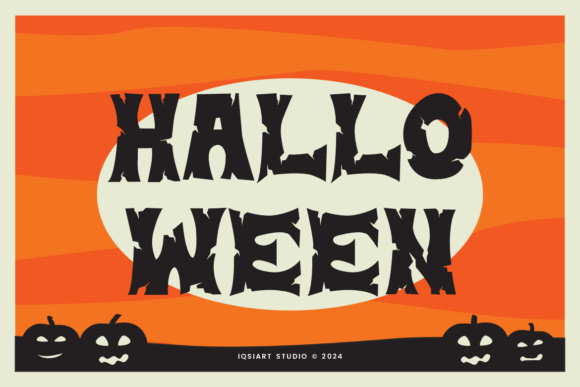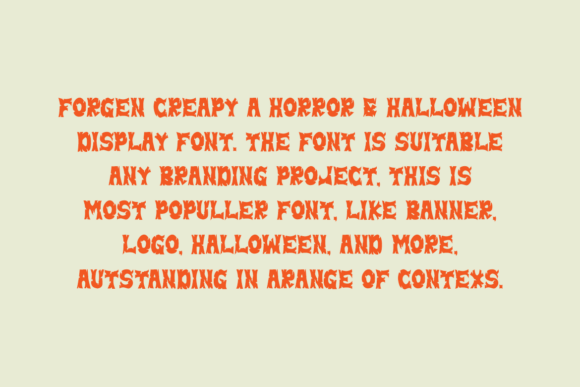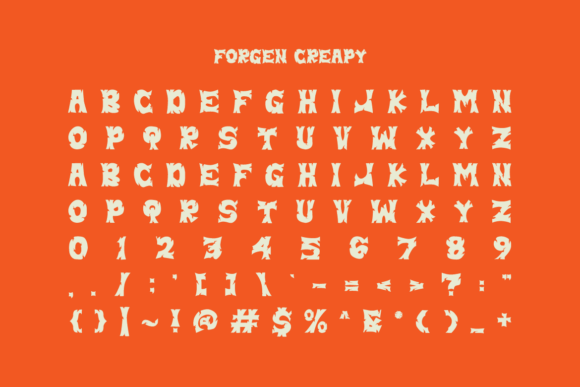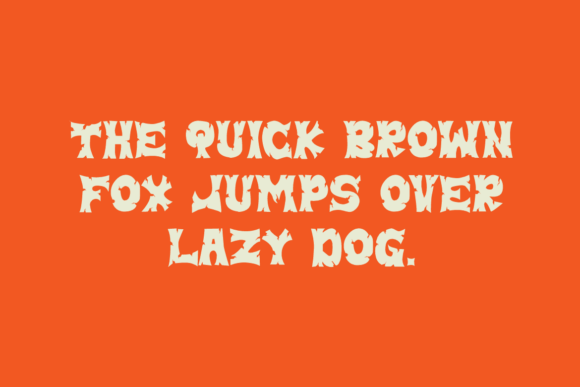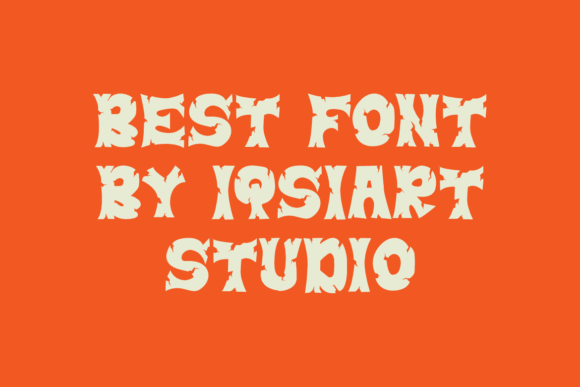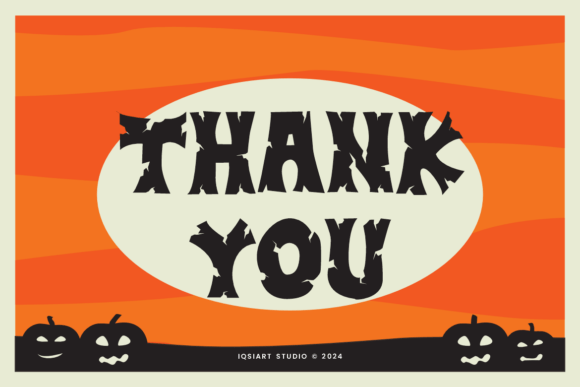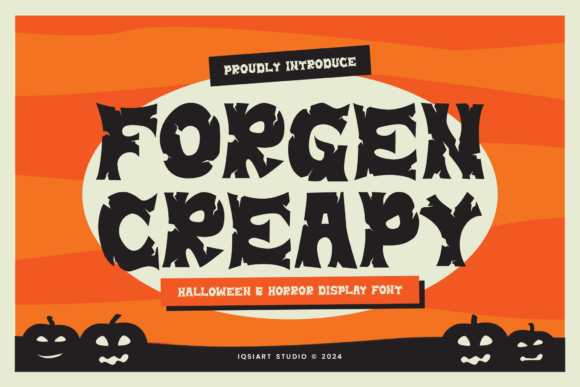
Forgen Creapy Font: The Ultimate Halloween Display Font for Spooky Projects
As the spookiest time of the year approaches, designers and crafters are on the lookout for the perfect font to add a chilling touch to their Halloween projects. Look no further than Forgen Creapy, a one-of-a-kind display font that’s sure to make your creations pop. In this article, we’ll dive into the details of this unique font and explore its features, uses, and benefits.
What is Forgen Creapy Font?
Forgen Creapy is a Halloween display font designed to evoke the classic horror tropes of the spooky season. With its sharp, jagged edges and hand-torn feel, this typeface is the perfect blend of creepy and quirky. The font’s distressed look gives it a unique, eerie feel that’s sure to grab attention and send shivers down the spine.
Key Features of Forgen Creapy Font
• Sharp, jagged edges: Forgen Creapy’s edges are rough and uneven, giving the font a delightfully creepy feel.
• Hand-torn feel: The font’s texture has a hand-torn quality, adding to its distressed, eerie look.
• Chilling and quirky: Forgen Creapy strikes the perfect balance between spooky and fun, making it ideal for a wide range of Halloween projects.
Uses for Forgen Creapy Font
Forgen Creapy is a versatile font that can be used for a variety of spooky projects, including:
• Halloween posters: Create eye-catching posters that will grab attention and set the tone for your Halloween party or event.
• Haunted invitations: Design creepy invitations that will leave your guests shivering with anticipation.
• Creepy crafts: Add a touch of spookiness to your Halloween crafts, such as decorations, garlands, and DIY projects.
• Themed merchandise: Create spooky-themed merchandise, such as t-shirts, mugs, and tote bags, that will make your customers scream with delight.
Benefits of Using Forgen Creapy Font
So why choose Forgen Creapy font for your Halloween projects? Here are just a few benefits:
• Unique and eye-catching: Forgen Creapy’s distressed look and quirky feel make it a one-of-a-kind font that’s sure to grab attention.
• Easy to use: This font is easy to read and use, making it perfect for a wide range of projects.
• Versatile: Forgen Creapy can be used for both digital and print projects, making it a great addition to your font library.
Tips for Using Forgen Creapy Font
Here are a few tips for getting the most out of Forgen Creapy font:
• Experiment with colors: Try pairing Forgen Creapy with a range of spooky colors, such as orange, black, and purple, to create a unique look.
• Play with textures: Add an extra layer of depth to your projects by combining Forgen Creapy with different textures, such as blood splatters or spider webs.
• Mix and match: Don’t be afraid to combine Forgen Creapy with other fonts to create a unique look.
Forgen Creapy font is the perfect addition to any designer’s or crafter’s font library. With its sharp, jagged edges and hand-torn feel, this font is sure to add a chilling touch to your Halloween projects. Whether you’re creating spooky posters, haunted invitations, or creepy crafts, Forgen Creapy is the ideal choice. So why wait? Download Forgen Creapy font today and get ready to make your Halloween projects scream with delight!